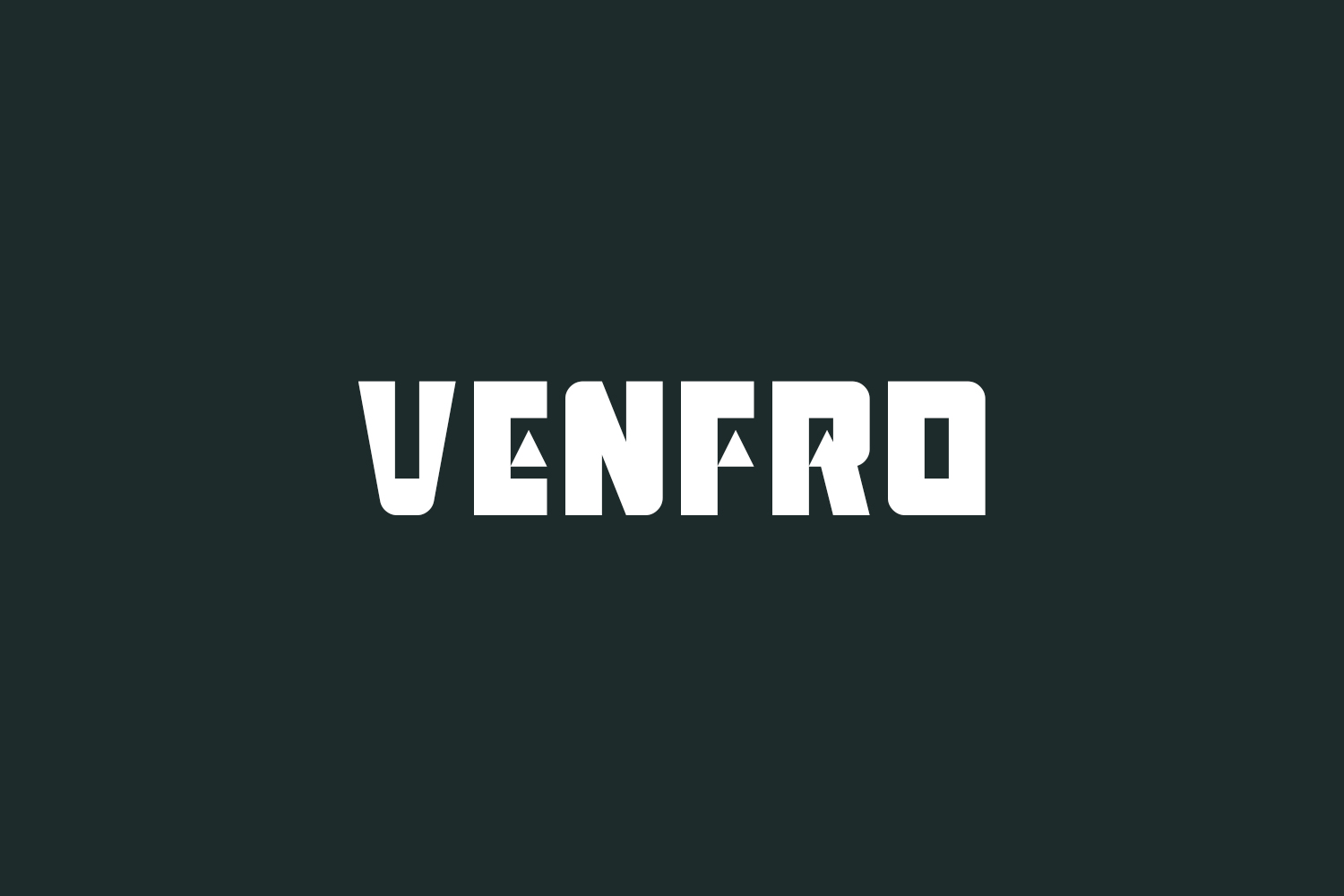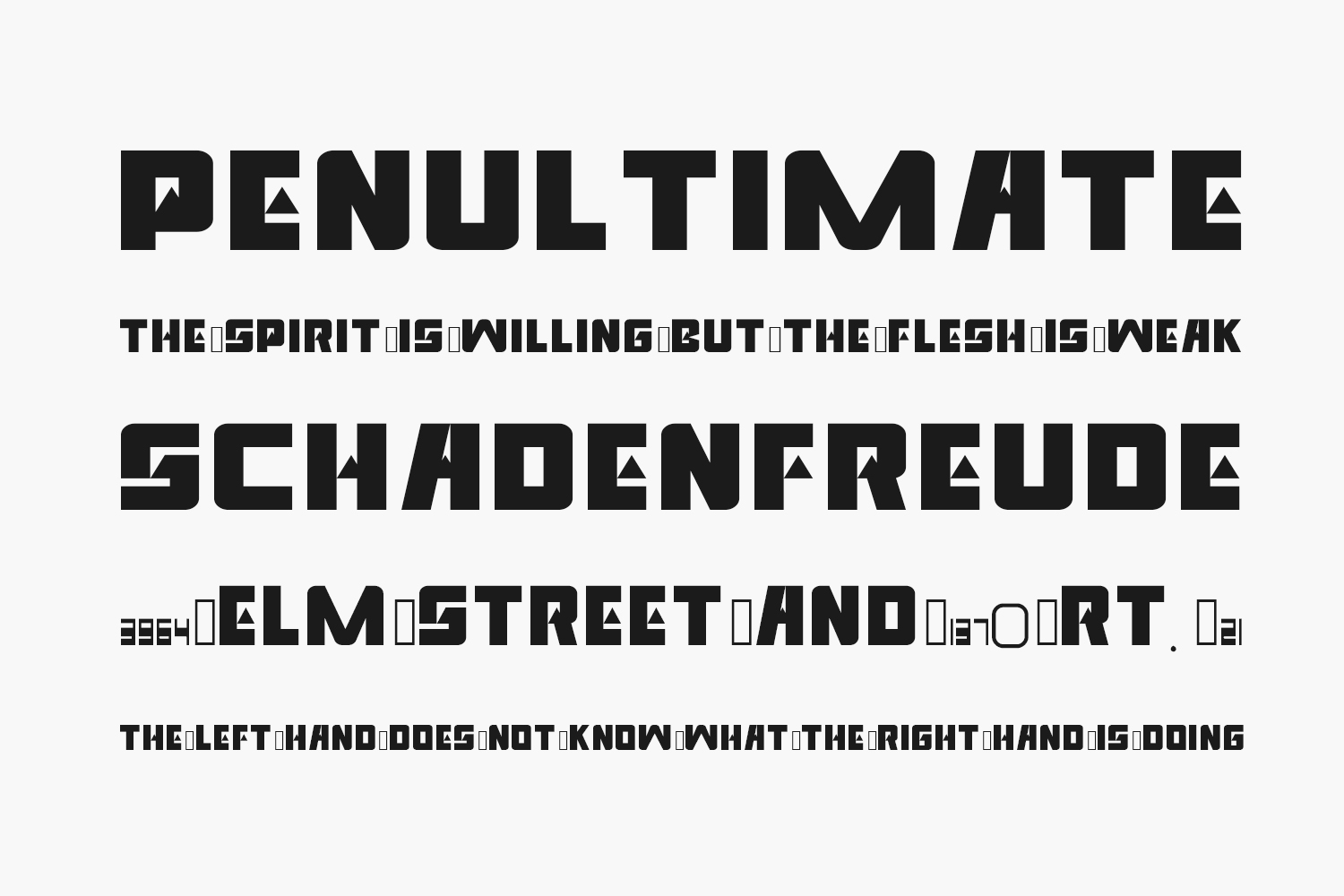
Venfro Free Font is a bold and thick lettered display font. It reads as strong, confident, and dynamic and can add tons of assertive character to your designs. Venfro Free Font was designed by Ffeeaarr is a demo and free for personal use only. Please purchase the full version for commercial use.